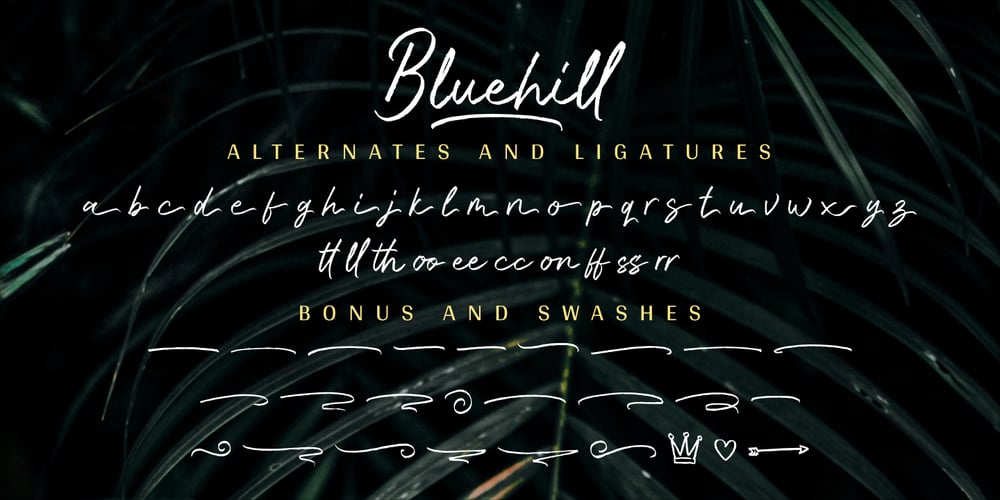
Bluehill
Bluehill font
Bluehill Font Family was designed by Faja Abdul Fatah and published by Sibelumpagi. Bluehill contains 2 styles and family package options. Introducing our new font called “Bluehill”. Bluehill is a dry marker handwritten font with textured lines and classy style for your signature or design purpose. It comes with dynamic ligatures and alternates to give you a more natural experience. Bluehill is a good choice for many different projects such as logos & branding, invitations, stationery, wedding designs, social media posts, advertisements, product packaging, product designs, labels, photography, watermark, special events and more.